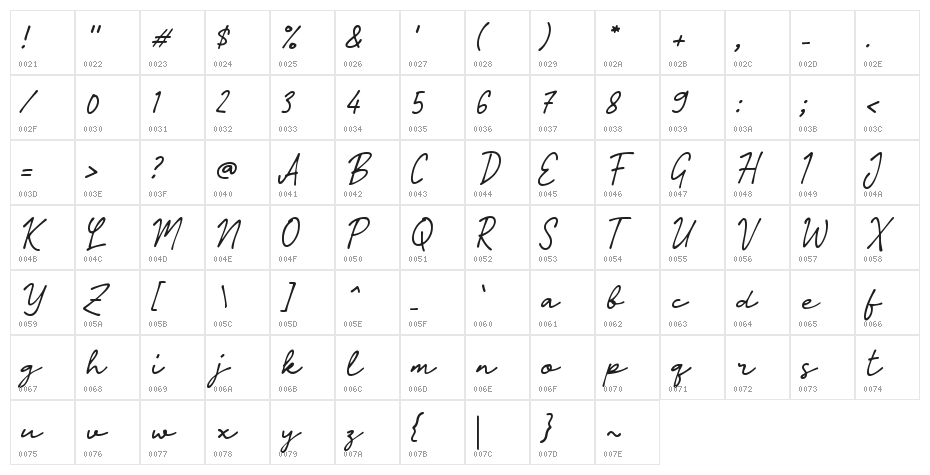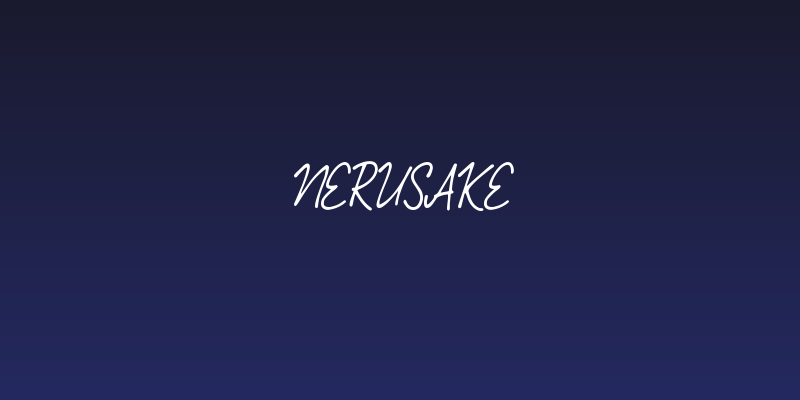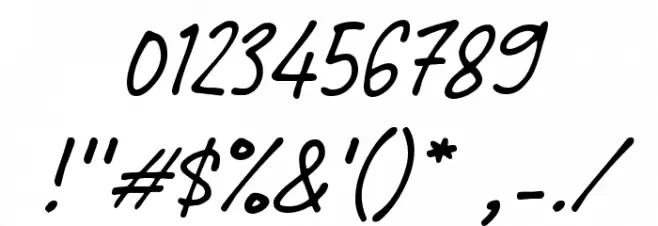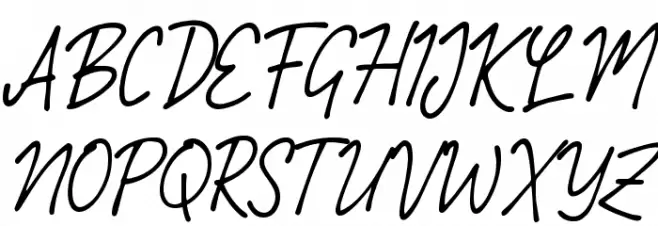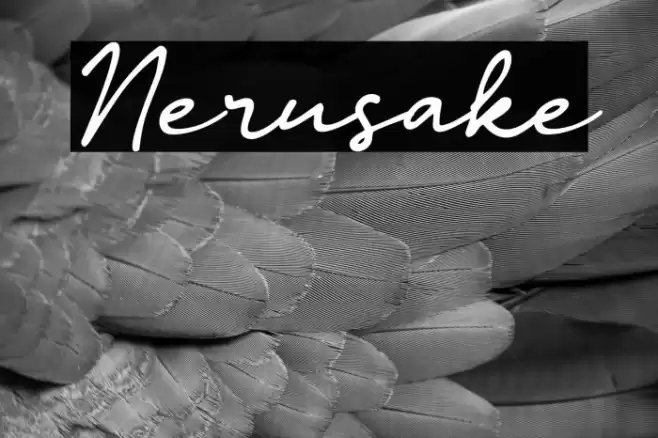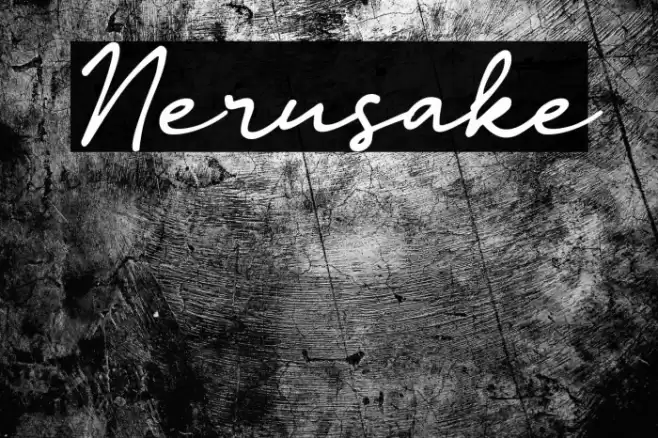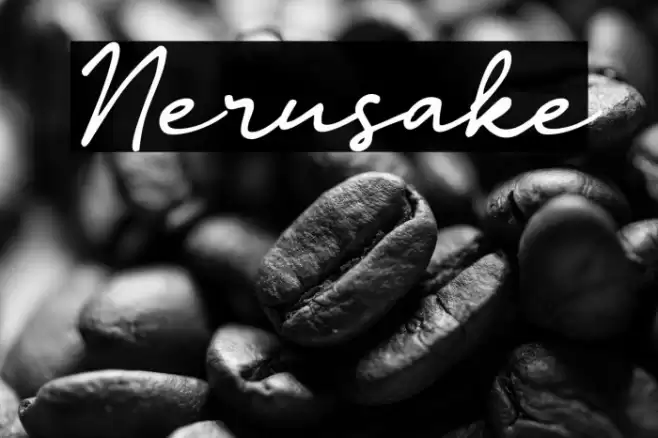
Nerusake Font
Nerusake Description
A casual, handwritten script font with a smooth, flowing style that mimics natural handwriting.
| Overall Style | Casual, Handwritten |
| Use Case | Invitations, greeting cards, personal branding, logos, casual branding |